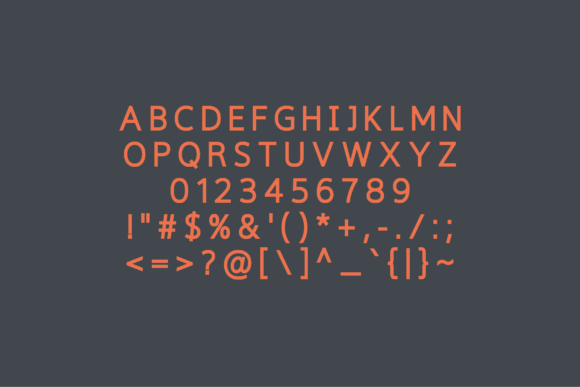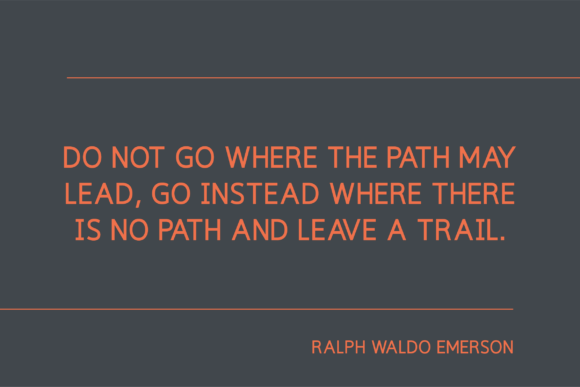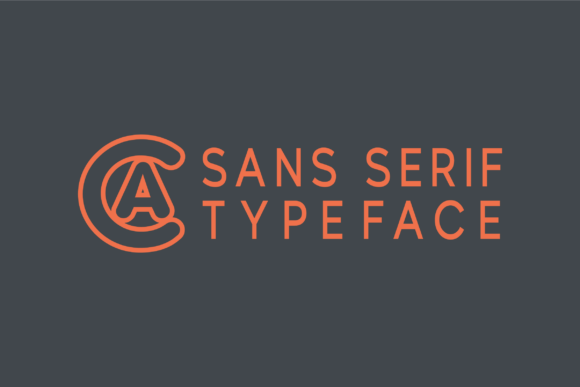
A New Era in Typography: Introducing Burged Font
Have you ever stared at a blank page, waiting for the perfect font to inspire your next design project? For many of us, that moment of creative clarity is what drives us to create something truly special. It’s a moment where the right font can elevate an idea from ordinary to extraordinary.
That’s where Burged Font comes in – a modern, classy sans serif typeface designed to bring your designs to life. With its upper characters, numbers 0-9, and a range of punctuation and symbols, Burged Font is the perfect addition to any designer’s toolkit. Whether you’re working on a logo, wedding invitation, or magazine spread, this versatile font is sure to deliver.
As a designer, you know how crucial the right font can be in making your vision a reality. That’s why Burged Font is a valuable asset in your creative arsenal – it’s a reliable, high-quality choice that will help you bring your ideas to life with precision and style.
Burged Font Key Features
- Unique Character Set: Burged Font features a unique set of characters, including alternate glyphs and ligatures, adding a touch of sophistication and elegance to designs.
- Multi-Lingual Support: The font includes support for multiple languages, making it an ideal choice for global branding and design projects.
- Professional Touch: Burged Font is designed to evoke a sense of professionalism and sophistication, perfect for corporate branding, editorial design, and other high-end applications.
Burged Font Review
Overall, I’m quite impressed with the Burged Font. ✨ It’s a beautiful, modern sans-serif typeface that’s perfect for digital design projects. The font is highly legible and works well in a variety of contexts, from body text to headlines.
The Burged Font’s versatility is one of its strongest features. ✨ It’s suitable for both web and print projects, and it looks great in different sizes and resolutions. The font’s clean lines and geometric shapes make it a great choice for modern designs that require a touch of sophistication.
- Highly legible and easy to read
- Works well in a variety of contexts (body text, headlines, etc.)
- Perfect for digital design projects (web, print, etc.)
- Modern and sophisticated design
Limitsations:
- May not be suitable for traditional or vintage designs
- Some users may find it too plain or boring
- Lack of italic or bold font styles (though this may be intentional)
The Burged Font is a solid choice for designers looking for a modern, legible sans-serif typeface. While it may not be the best fit for every project, it’s a great addition to any designer’s toolkit. With its versatility and clean design, the Burged Font is sure to please.
Getting the Most Out of Burged Font
To get the most out of Burged Font, try the following tips:
- Use it in combination with bold or italic styles for added emphasis.
- Adjust the font size to create visual hierarchy in your design.
- Experiment with different font colors to create contrast and visual interest.
Burged Font is commonly used in:
- Choose a bold color scheme to match the energetic vibe of graffiti.
- Use Burged Font in uppercase to create a strong, urban feel.
- Experiment with different font sizes to create a sense of depth and hierarchy.
- Pair Burged Font with abstract shapes and lines to create a dynamic, street-art-inspired design.
- Use bright, bold colors to add energy and movement to the design.
- Consider adding a subtle texture or pattern to give the design a sense of grit and urbanity.